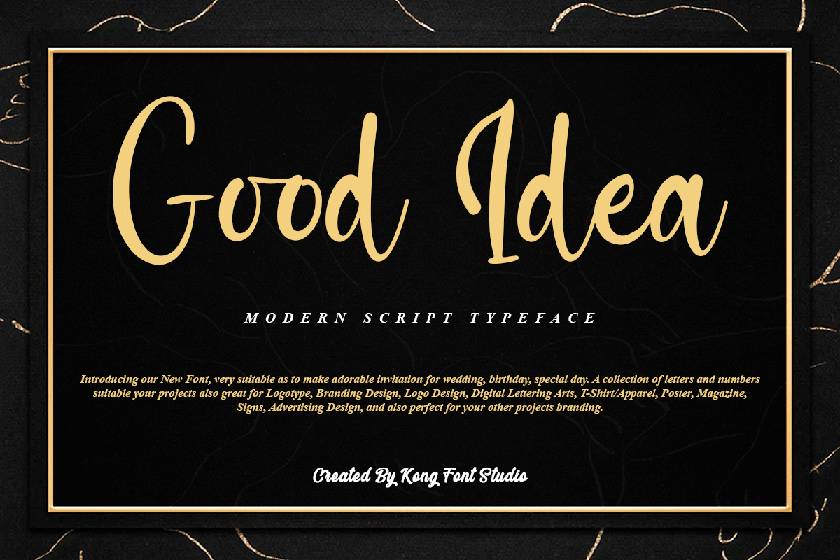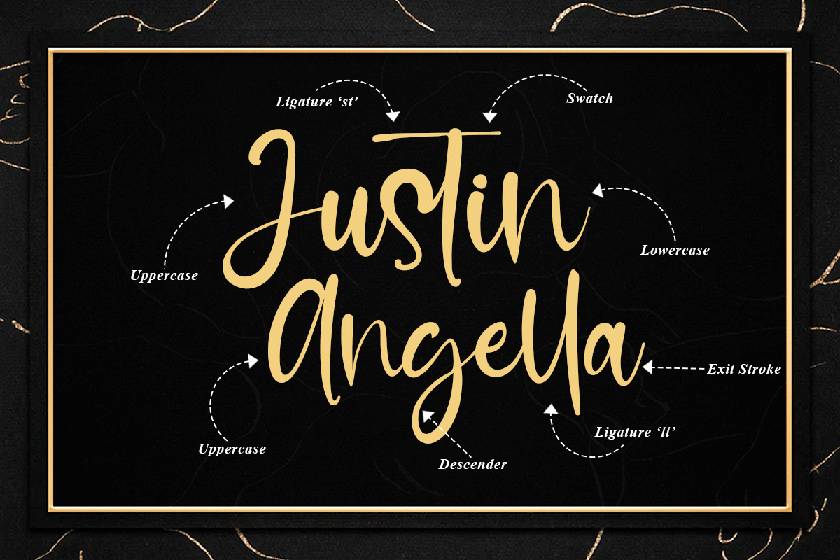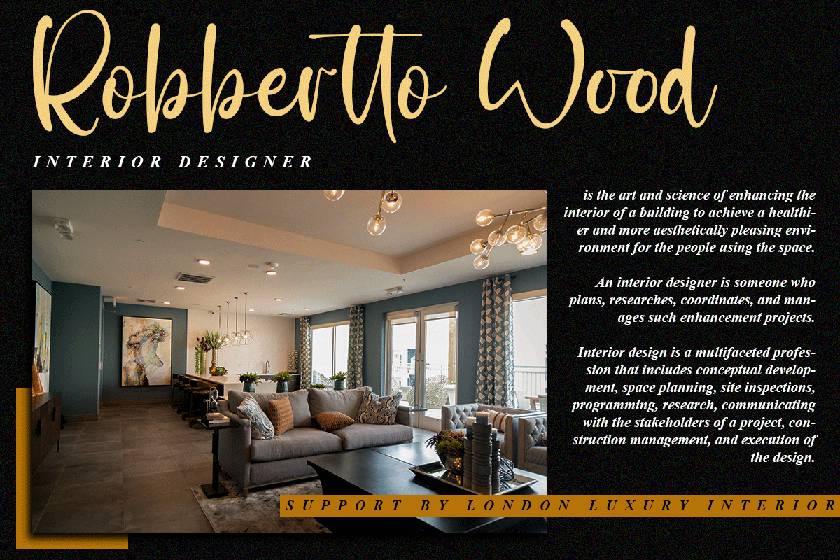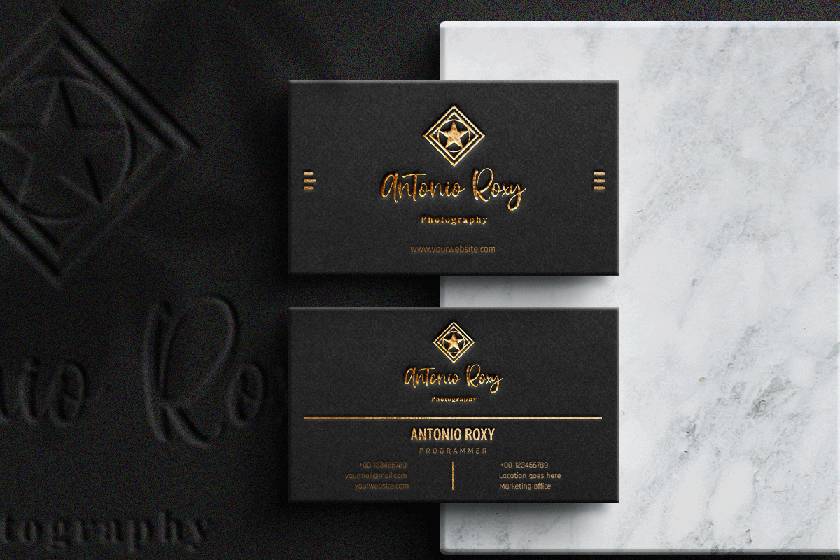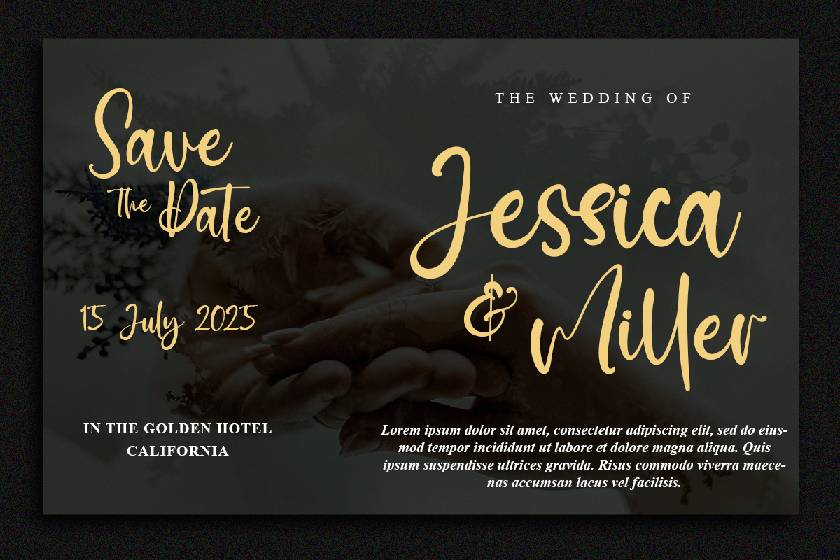
Good Idea Font is a playful and elegant script typeface with a hand-drawn, casual feel. Featuring a light weight, tall x-height, and fluid, slightly irregular strokes, it conveys warmth and creativity, making it perfect for branding, invitations, and expressive headlines where a personal, artistic touch is desired. Its unique letterforms and lively style bring charm and friendliness to any design.
Good Idea Font
About Good Idea Font
| Font family | Good Idea Font |